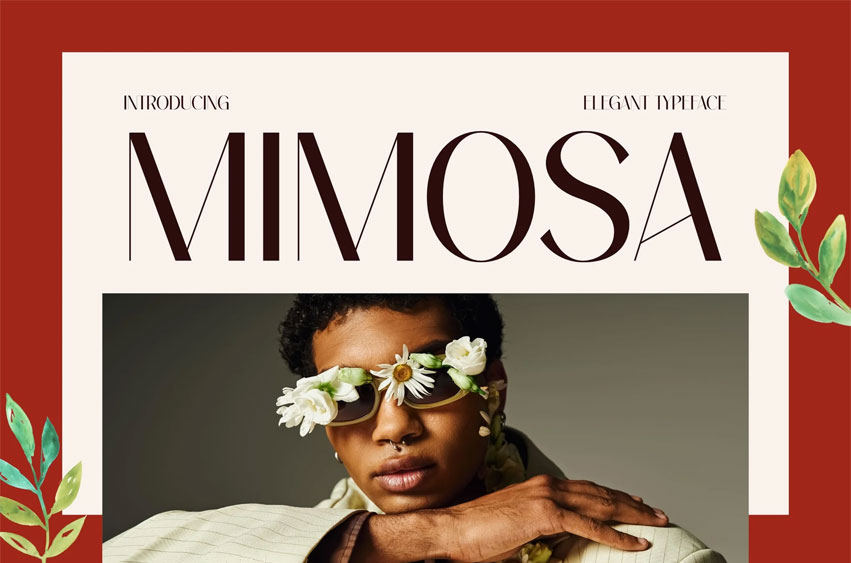
Mimosa Font
Mimosa Font is a refined serif display designed to express calm confidence and timeless sophistication. Its balanced proportions, smooth contrast, and graceful terminals create a visual tone that feels composed, mature, and intentional.
The letterforms carry a quiet elegance that works beautifully in spaces where restraint and clarity matter more than decoration.
With its classic structure and modern polish, MIMOSA brings harmony to branding systems that aim to feel elevated without being rigid.
• Soft, rounded serifs – feel friendly and easy on the eyes
• Subtle floral accents – add personality without being too loud
• Great readability – looks clear in headlines and smaller text
• Warm & modern balance – works for both bold statements and gentle messages
Use MIMOSA to shape designs that feel thoughtful, polished, and quietly confident. A reliable choice for projects that need elegance to speak without excess.